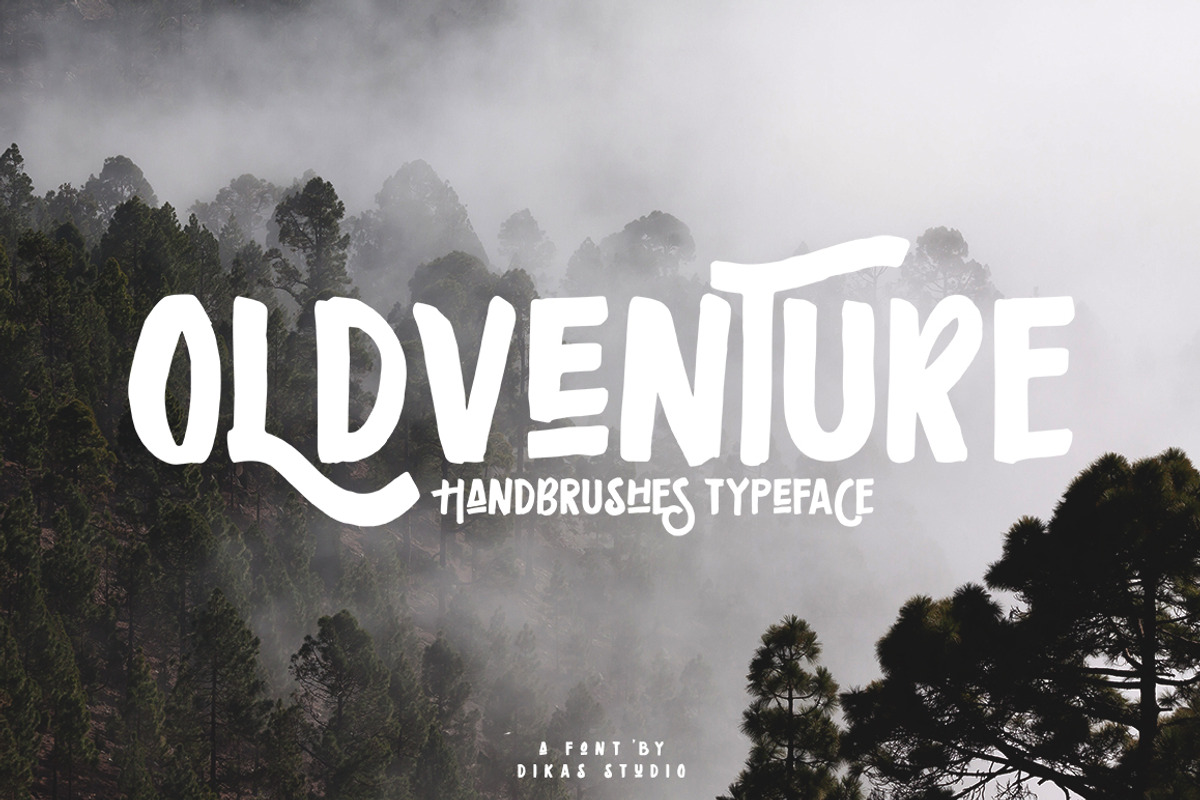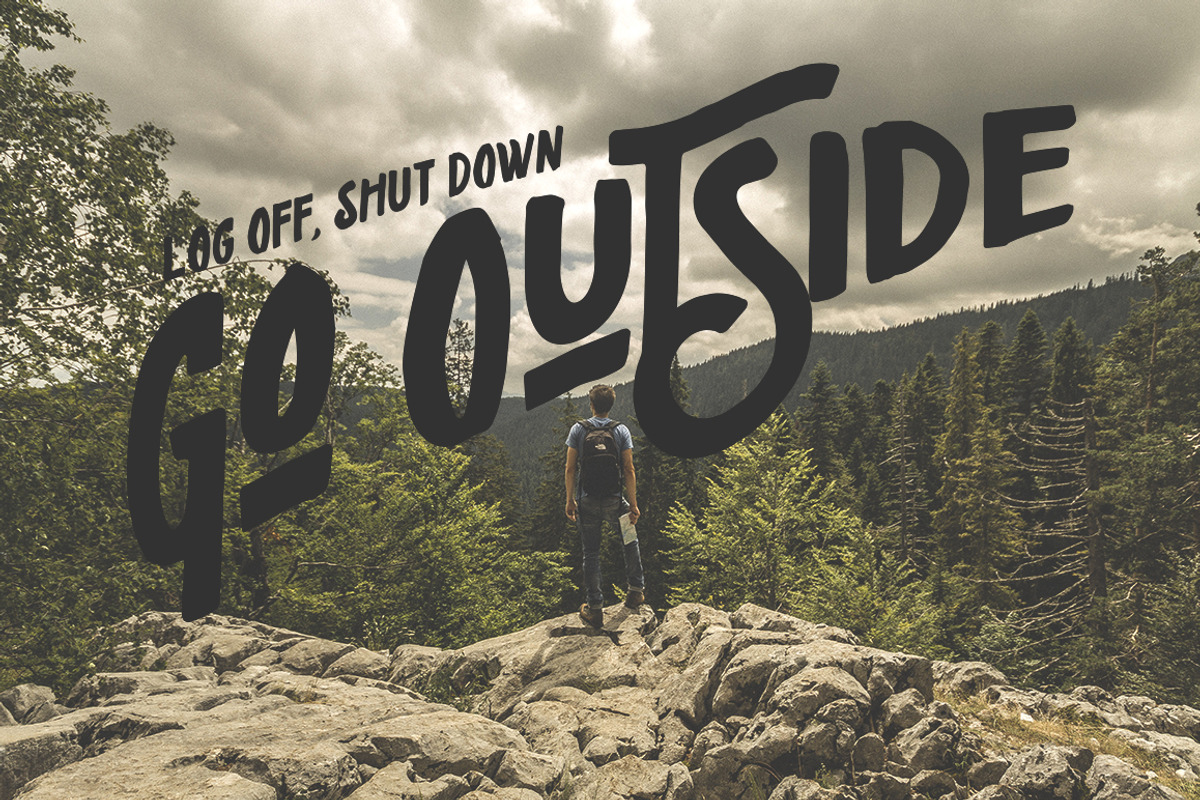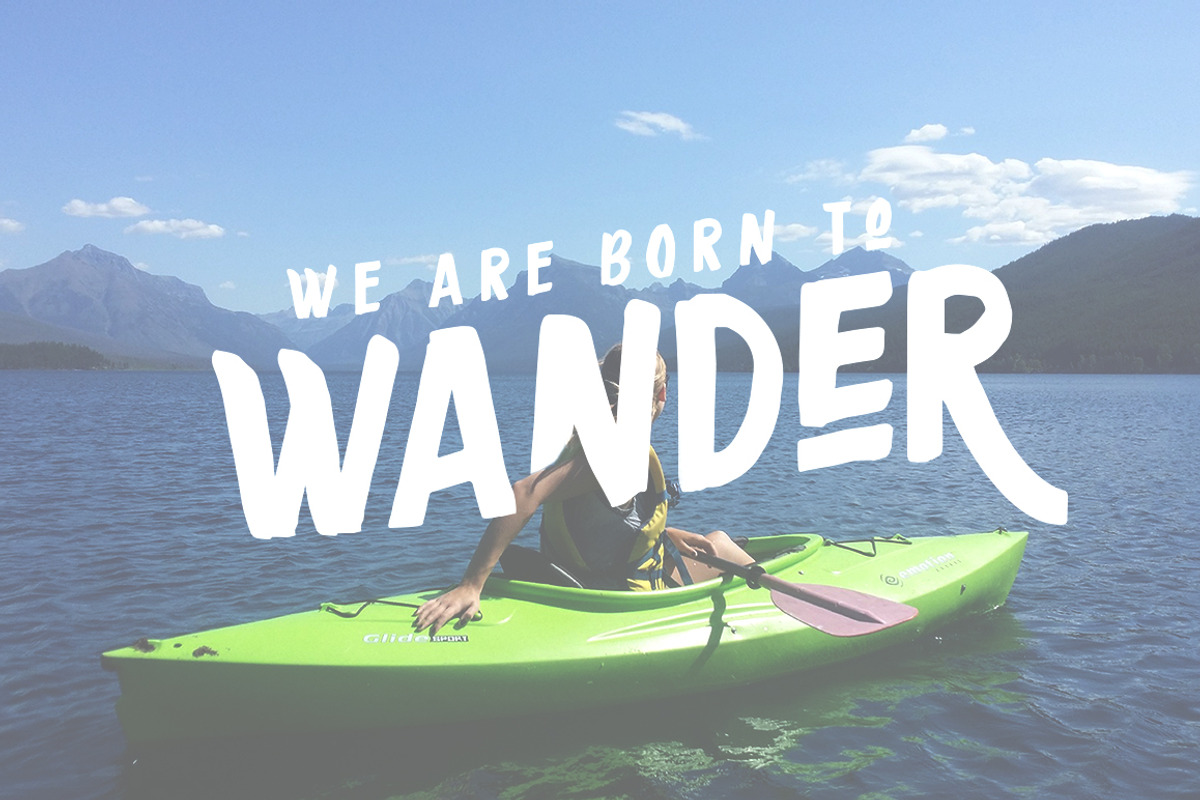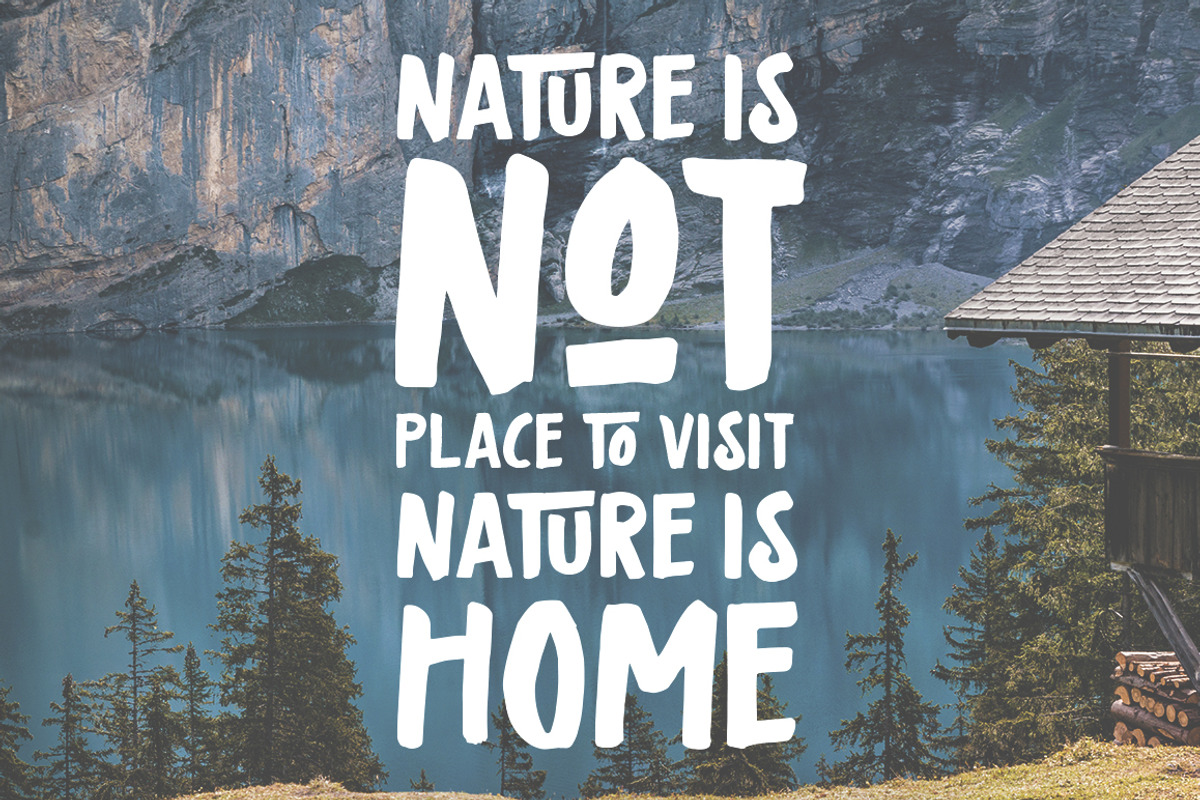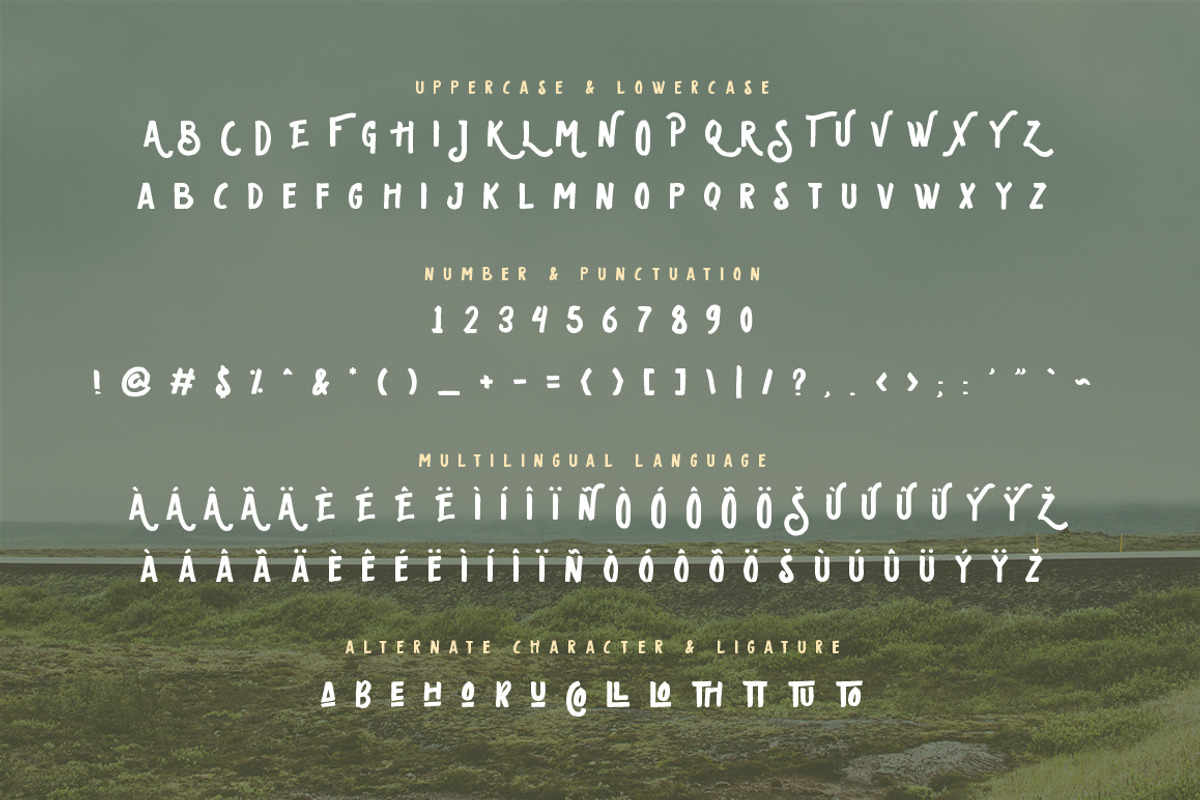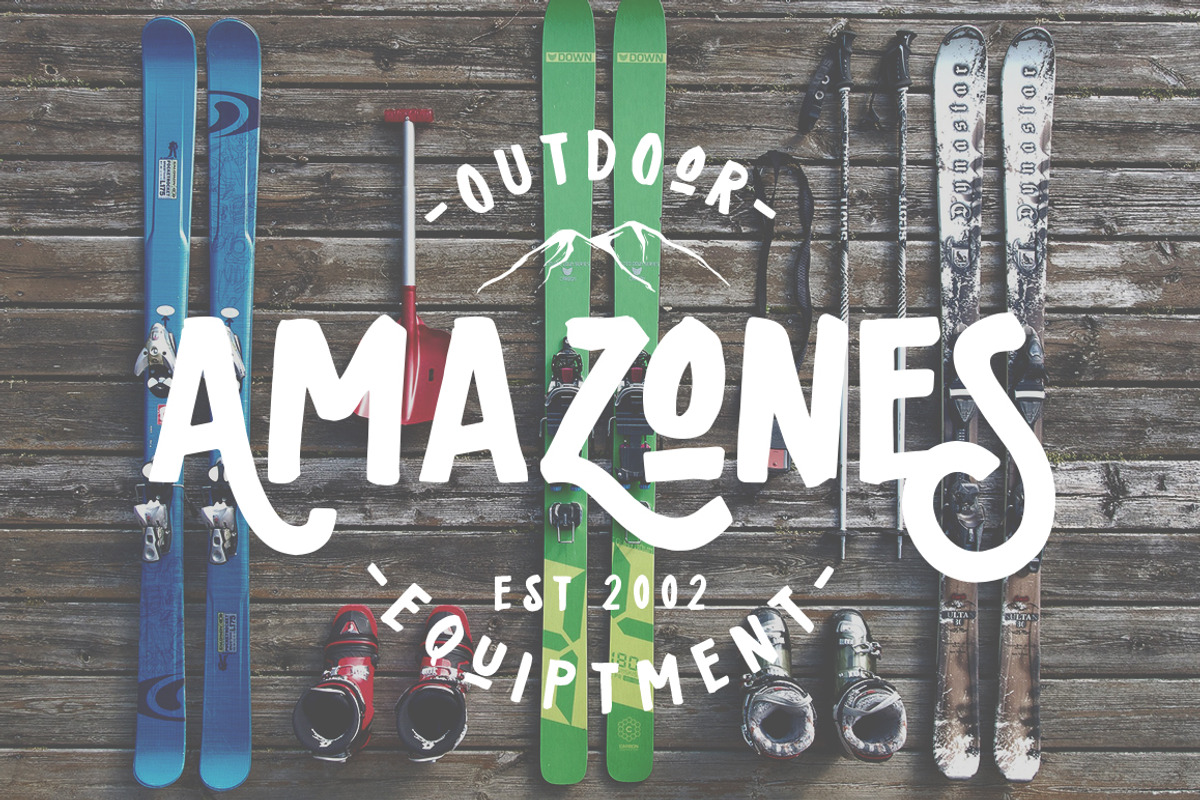
Oldventure - Handbrushes Typeface
Hello friend, let me introduce my product Oldventure - Handbrushes Typeface
Oldventure have brush character made by hand directly . You can mix and match the alternate and ligature, its very helpfull to get handdrawn design. Suitable and applicable to create vintage design, branding, logos, product packaging, invitation, qoutes, t-shirt, label poster etc.
Punctuation and Number
Multilingual Language
Alternate Character & Ligature
- You can mix and match the alternate and ligature, its very helpfull to get handdrawn design.